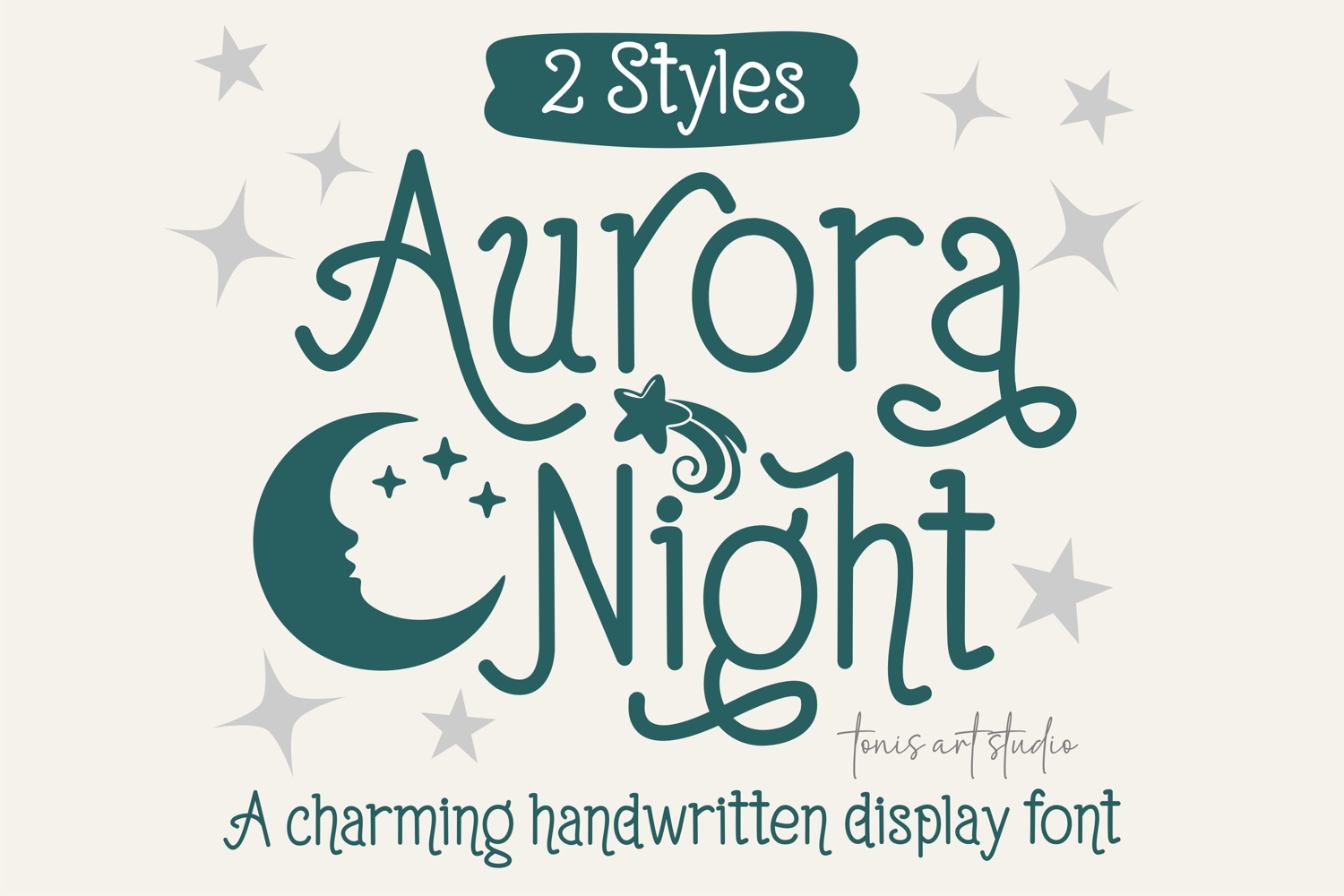
Aurora Night Font, Cute Handwritten Display Font
The Aurora Night Font is a charming handwritten display typeface created to bring magic, warmth, and a dreamy glow to your creative projects. With its whimsical curls, soft curves, and starlit personality, this font blends cozy storytelling with playful elegance, perfect for designs that need both sweetness and a touch of enchantment.
A standout feature? Its expressive glyphs, including uppercase and lowercase letters, numbers, punctuation, and alternates that give every word a delightful, celestial feel. Whether you’re creating Christmas quotes, winter illustrations, children’s projects, festive t-shirts, greeting cards, logos, or cozy seasonal artwork, Aurora Night transforms simple text into something bright, inspiring, and full of imagination.
With its friendly character and enchanting handwritten style, this font is ideal for designers and crafters who love blending creativity, warmth, and whimsy into one magical typeface. Aurora Night brings the charm of a peaceful winter night sky to every design.
Aurora Night Font is perfect for:
Magical quotes, cozy winter crafts, Christmas graphics, children’s projects, dreamy posters, holiday cards, whimsical T-shirts, nursery prints, enchanting invitations, planners, stickers, seasonal branding, and creative digital artwork.